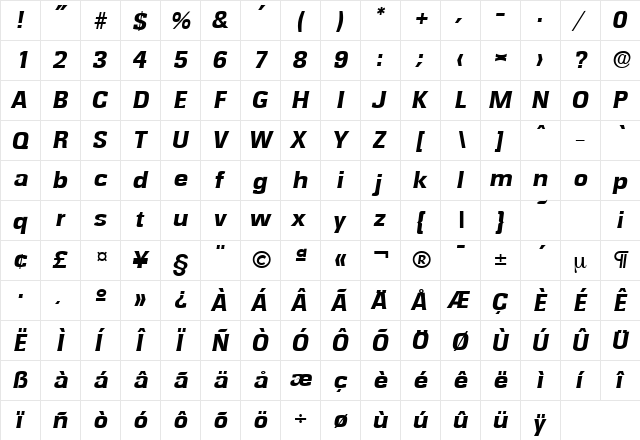
Rochester-Serial-ExtraBold RegularItalic Font Preview
Design Context for Rochester-Serial-ExtraBold Typeface
Rochester-Serial-ExtraBold takes a measured approach to typography — its balanced proportions and neutral character make it a reliable workhorse for both digital and print work. The slanted form adds forward momentum and visual energy. The heavy weight commands attention and anchors typographic hierarchies.
Pro Tip: Use Rochester-Serial-ExtraBold for emphasis, pull quotes, and subheadings where its slanted energy can add rhythm to the layout.